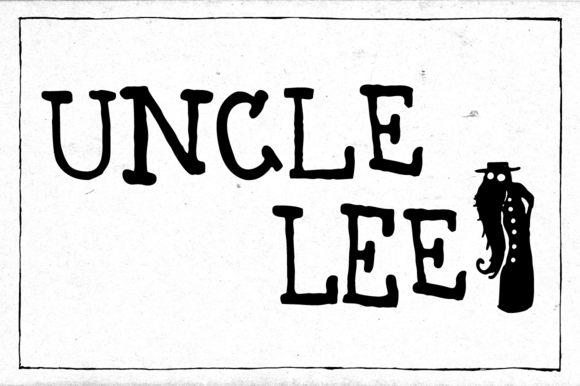
Feast your eyes on Uncle Lee Regular, a captivating serif font family that exudes a timeless charm and classic sophistication. This font family is the brainchild of the renowned Dawnland, a name synonymous with typographic excellence.
Uncle Lee Regular is a remarkable font family that transports you back to the golden age of typography, where fonts were crafted with care and precision. Its classic serifs and elegant curves evoke a sense of nostalgia and sophistication, making it an ideal choice for projects that demand a touch of history and tradition.
More than just a font, Uncle Lee Regular is a gateway to a world of endless creative possibilities. Its versatile nature lends itself effortlessly to a wide range of design projects, from elegant wedding invitations and timeless logos to captivating marketing materials and stunning book covers. Whether you're a seasoned designer or just starting, Uncle Lee Regular is the perfect companion for bringing your creative visions to life.
Discover the allure of Uncle Lee Regular, a font family that weaves a tapestry of heritage and innovation. Its classic design elements blend seamlessly with modern sensibilities, creating a font that is both timeless and fresh. Experience the joy of typography with Uncle Lee Regular, and elevate your designs to new heights.
With Uncle Lee Regular, you'll embark on a creative journey filled with endless possibilities. Its versatility knows no bounds, adapting gracefully to various design styles and projects. Whether you're designing a classic poster, crafting a memorable logo, or creating a captivating social media post, Uncle Lee Regular will effortlessly elevate your work, leaving a lasting impression.
Immerse yourself in the world of Uncle Lee Regular, a font family that speaks to the heart and soul. Its intricate details and expressive characters are a testament to the artistry and craftsmanship that went into its creation. Each letterform is a stroke of genius, carefully designed to convey emotion and meaning. With Uncle Lee Regular, your designs will transcend the ordinary and become extraordinary.